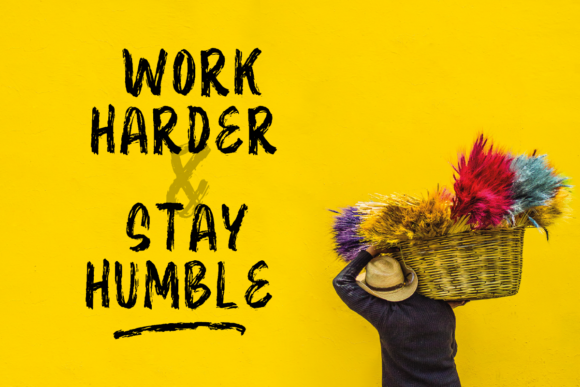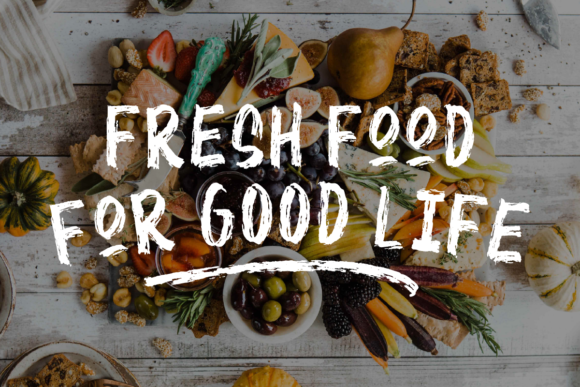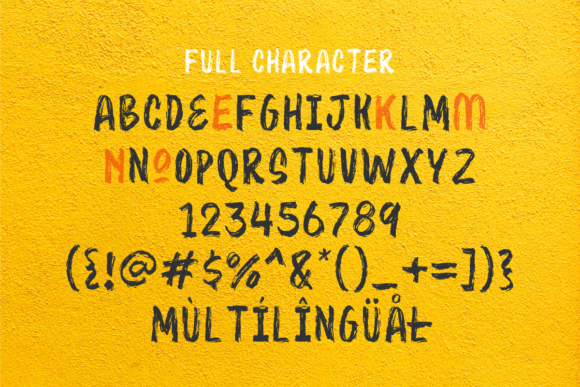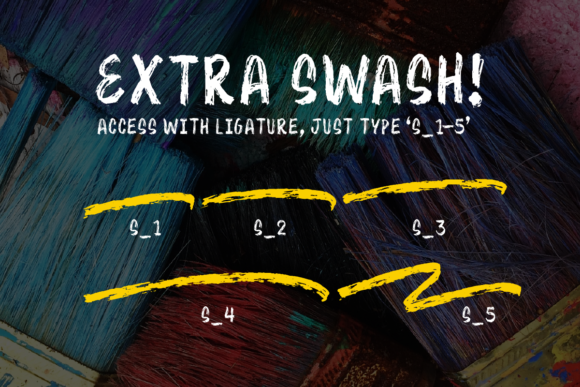
The Perfect Brush Stroke: Elevating Your Designs with Badowen Brush Font
Do you ever get that spark of creativity when you stumble upon a new font that makes your heart skip a beat? For me, it’s those moments when I find a font that perfectly captures the essence of a DIY project. Whether it’s a handmade card or a custom sign, the right font can make all the difference.
Enter the Badowen Brush Font – a stunning display font that’s as authentic as it gets. Drawn with a thick brush, this font is perfect for adding a personal touch to any project. With its beautiful, handwritten feel, it’s no wonder designers are going crazy for it. The Badowen Brush Font is more than just a font – it’s a tool for creatives to express themselves and bring their vision to life.
Badowen Brush Font Key Features
- Font Style: Brush Script Font
- Character Count: 750+ glyphs, including Latin, Cyrillic, and Greek alphabets
- Size: Available in 4 font sizes: 14px, 18px, 24px, and 36px
- Resolution: Optimized for high-resolution displays (HiDPI) and retina screens
- Unique Characteristics: Hand-drawn, brush-like strokes and subtle texture, perfect for creative and artistic projects
Badowen Brush Font Review
As a designer, I was excited to dive into the Badowen Brush Font, and overall, I’m quite pleased with what I found. ✨
- Unique Character Set: The Badowen Brush Font boasts a beautiful set of characters, each with a distinct personality. It’s perfect for adding a touch of whimsy to your designs.
- Flexibility: The font is incredibly versatile and can be used in a variety of contexts, from logos to packaging to digital displays.
- Easy to Read: Despite its brush-like appearance, the font is surprisingly easy to read, making it a great choice for body text.
- Not Ideal for Small Text: While the font is easy to read, it can become a bit fuzzy at smaller font sizes. ⚠️
- Lack of Italic and Bold Variants: The font could benefit from additional italic and bold variants to increase its versatility.
The Badowen Brush Font is a unique and charming addition to any designer’s toolkit. While it may have some limitations, its strengths far outweigh its weaknesses. I highly recommend it for designers looking to add a touch of personality to their projects.
For the best results, use the Badowen Brush Font for creative projects, such as:
1. Social media posts and graphics.
2. Flyers and brochures.
3. Logos and branding materials.
4. Handwritten-style invitations and cards.
Alternatives to Badowen Brush Font
Great Vibes Font is a beautiful, hand-drawn script font that’s perfect for adding a touch of elegance and sophistication to your designs. It’s ideal for use in titles, headings, and other high-impact text elements.
Compared to Badowen Brush Font, Great Vibes Font has a more refined and polished look, making it suitable for a wider range of design applications. While Badowen Brush Font has a more casual, handwritten feel, Great Vibes Font is more elegant and sophisticated.
Lobster Font is a fun, cursive font that’s great for adding a playful touch to your designs. It’s perfect for use in titles, headings, and other text elements where you want to convey a sense of whimsy and fun.
Compared to Badowen Brush Font, Lobster Font has a more exaggerated, curly feel that’s perfect for designs that need a bit of personality. While Badowen Brush Font is more subtle and understated, Lobster Font is more attention-grabbing and playful.
Carolyna Pro Font is a modern, elegant script font that’s perfect for use in high-end designs. It’s ideal for titles, headings, and other text elements where you want to convey a sense of luxury and sophistication.
Compared to Badowen Brush Font, Carolyna Pro Font has a more refined and polished look, making it suitable for a wider range of design applications. While Badowen Brush Font has a more casual, handwritten feel, Carolyna Pro Font is more elegant and sophisticated.